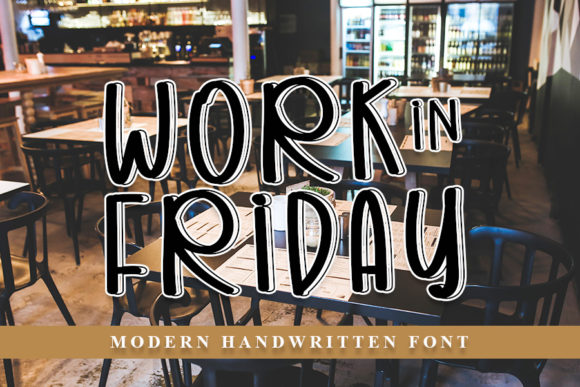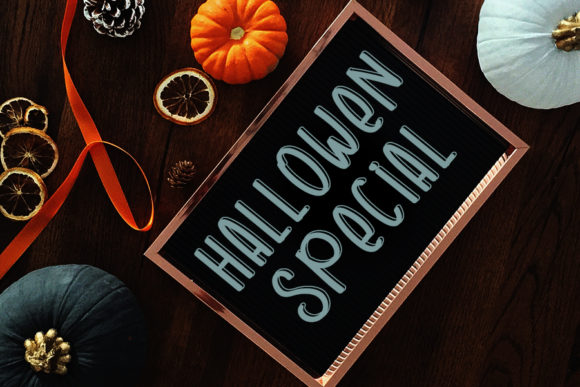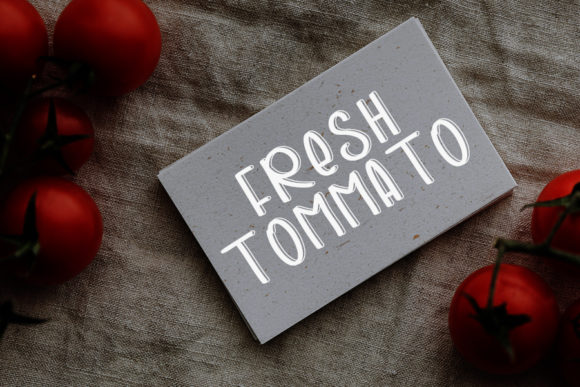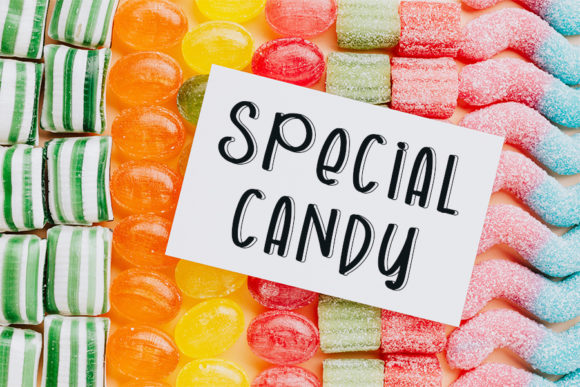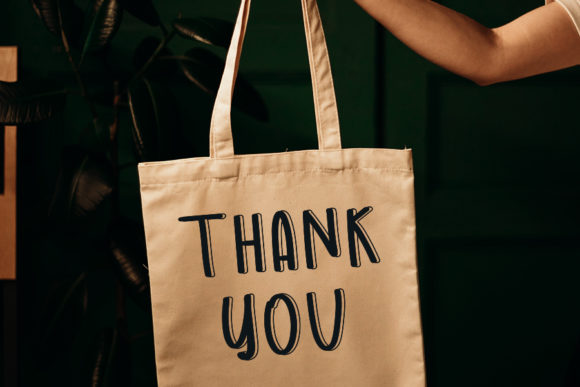
Work in Friday Font
About Work in Friday Font
Work in Friday is a simple and cute handwritten font. Not too thin and not too thick, balanced and varied, this font was designed to enhance the beauty of your projects.